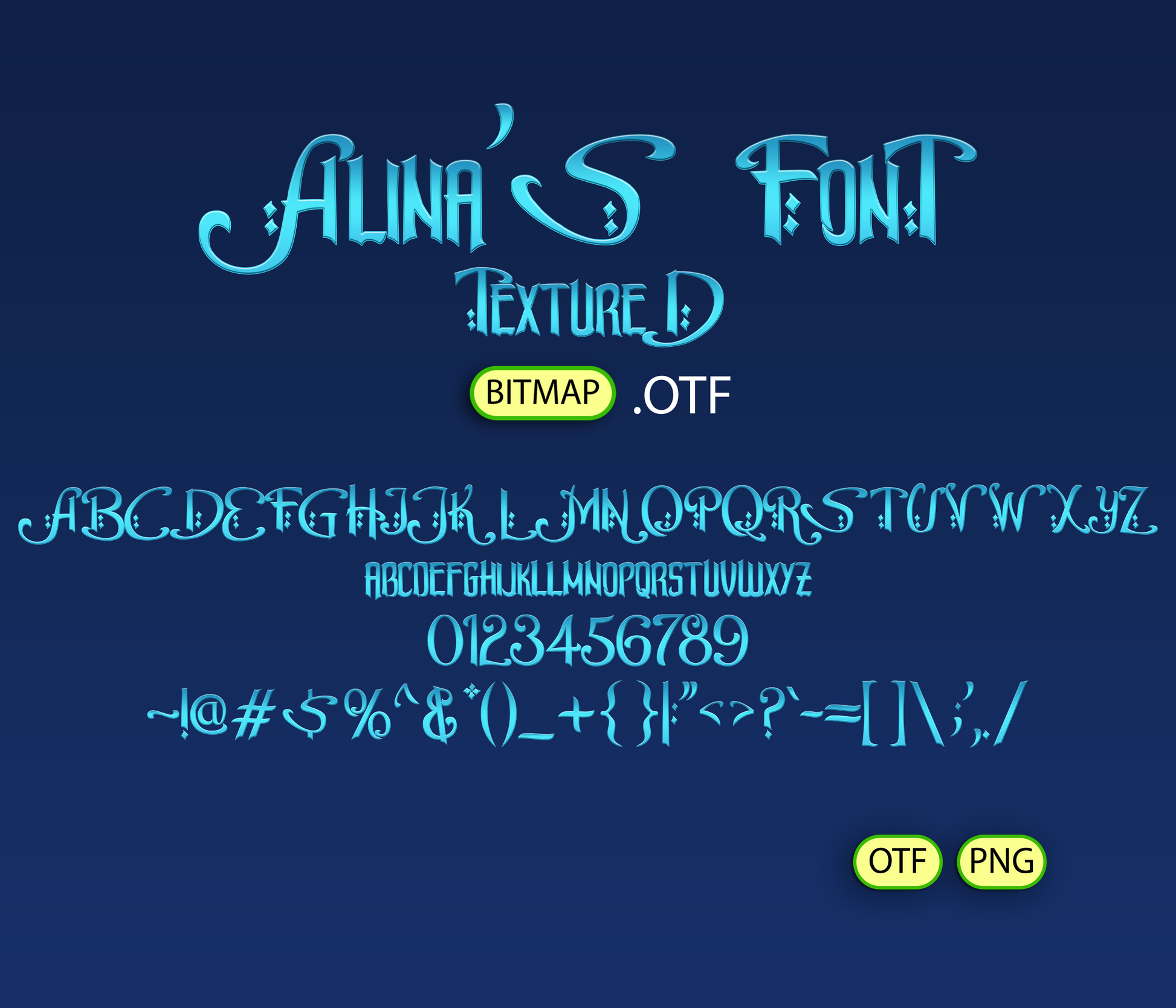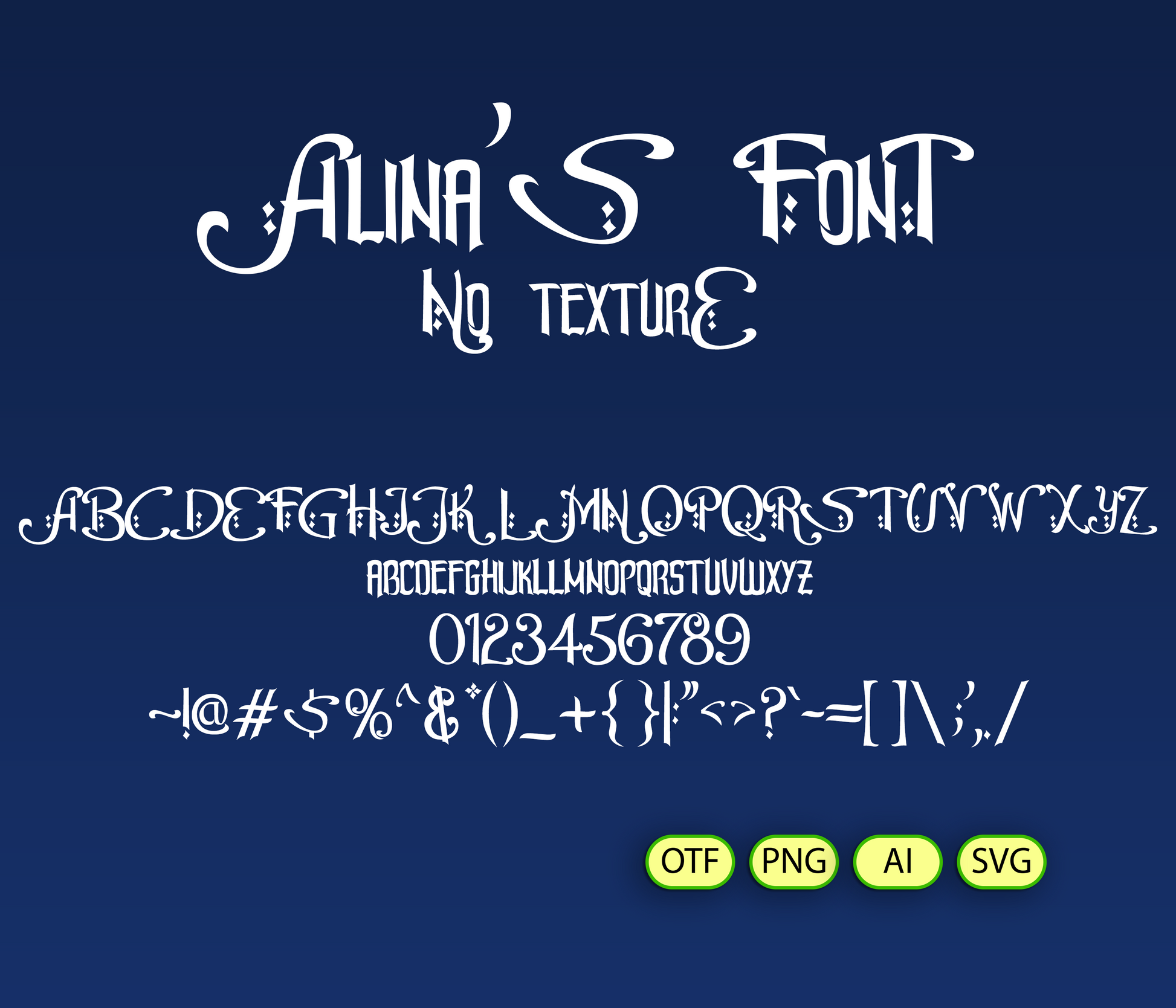
Spellbound Magic Font Textured
Step into the mystical realm with our enchanting Spellbound font, designed to capture the essence of magical academies and wizarding adventures. Perfect for creators, event planners, and designers seeking to infuse their projects with arcane charm. Create spellbinding invitations, themed merchandise, or mystical content that radiates supernatural energy.
Our Spellbound font features elegant swirls and mystical characters reflecting magical aesthetics. Ideal for:
Our Spellbound font includes textured and non-textured variants, ensuring compatibility with all software, including Canva. This feature allows easy incorporation into designs for users of all skill levels.
Our font celebrates the magic of spellcasting, empowering your designs with its mystical spirit. Whether crafting promotional materials, designing merchandise, or adding an enchanted touch to personal projects, this font communicates the essence of magical adventure.